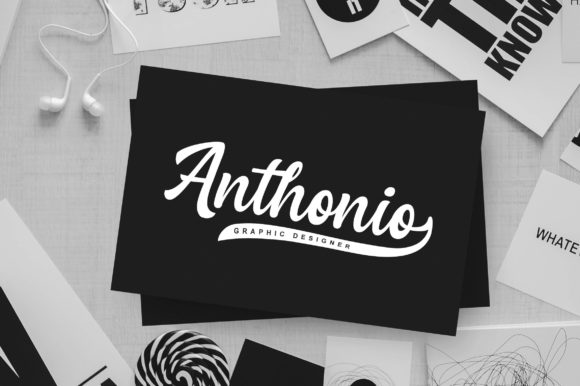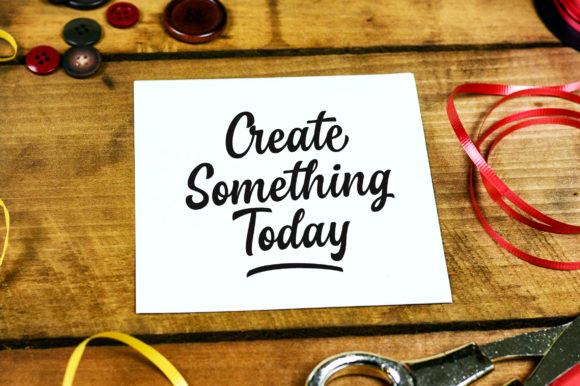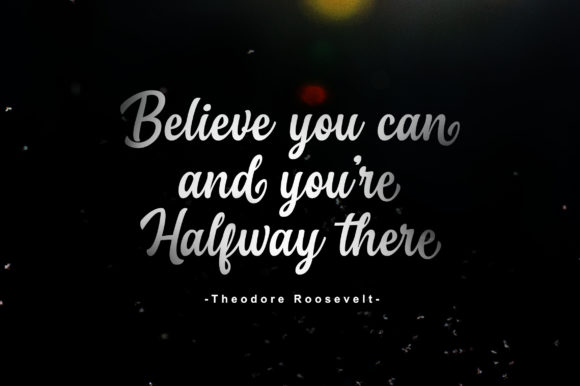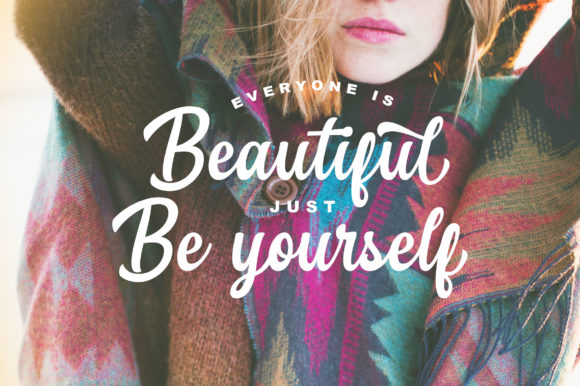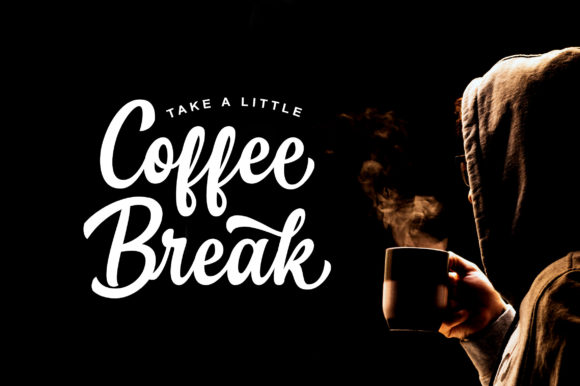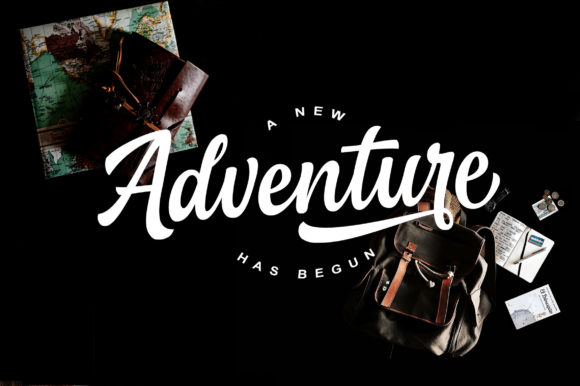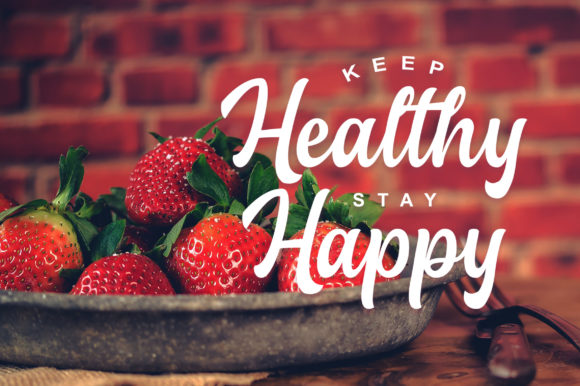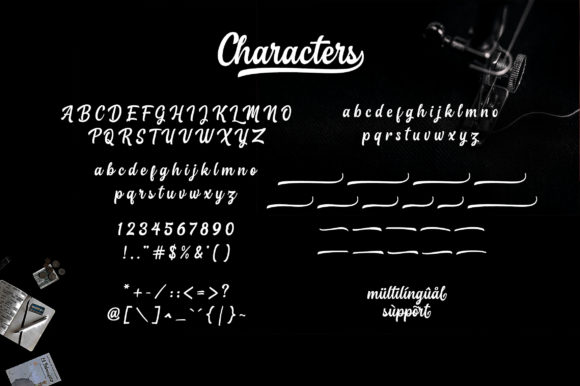
HomeScript FontsCatalunya Font Script Fonts Catalunya Font FacebookXPinterestWhatsApp Catalunya Font Poster 2 Catalunya Font Poster 3 Catalunya Font Poster 4 Catalunya Font Poster 5 Catalunya Font Poster 6 Catalunya Font Poster 7 Catalunya Font Poster 8 Catalunya Font Poster 9 About Catalunya Font Catalunya is a cool and charming script with a vintage vibe. Get inspired by its modern authenticity. DOWNLOAD NOW People also explored Angelisa Font Never Settle Font Spring Season JNL Font Citadels Signature Script Font Love by Love Font Lost Treasure Reallity Font Sinister Font La Paloma Font 317 0 TagsCatalunya Font Previous articleSigarette FontNext articleHumaniora Font LEAVE A REPLY Cancel reply Comment: Please enter your comment! Name:* Please enter your name here Email:* You have entered an incorrect email address! Please enter your email address here Website: Save my name, email, and website in this browser for the next time I comment. Personal Use Free Pelmeshka Personal Use Free Read more about this font Hysteria Santa Personal Use Free Read more about this font Omellia Personal Use Free Read more about this font 1980 Portable Personal Use Free Read more about this font BLOG The 10 Best Handwriting Fonts to Add Personality to Your Designs 10 of the Best Handwriting Fonts for Adding Personality to Your Designs There will undoubtedly be no other better choice than handwriting fonts to give... Modern Sans-Serif Fonts That Brands Love in 2025 Free Fonts Risk: Why Free Fonts Can Be Dangerous for Designers To increase your work productivity, choose the most readable fonts.